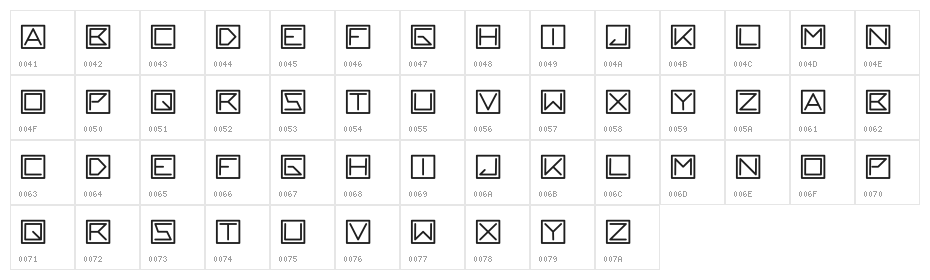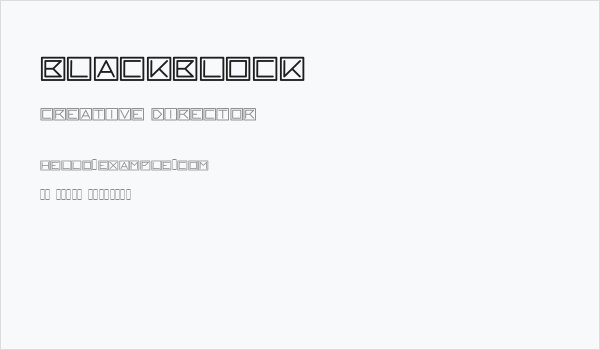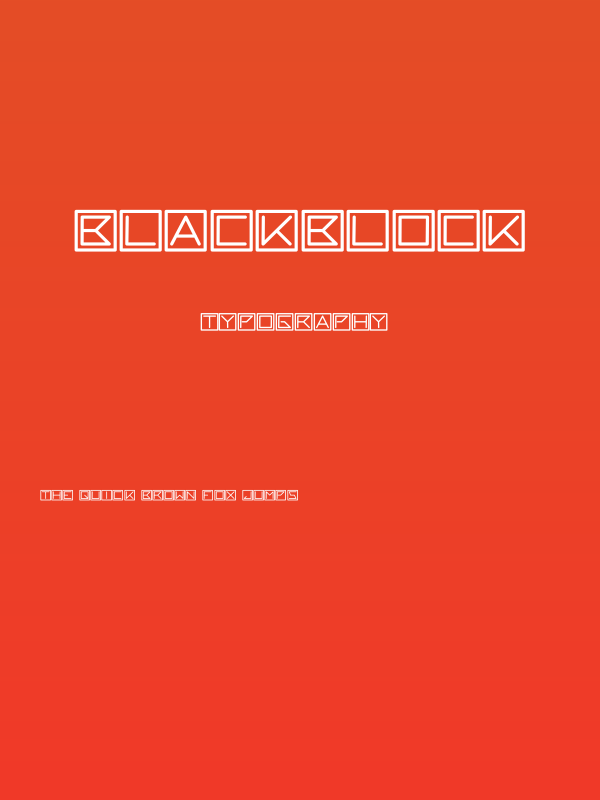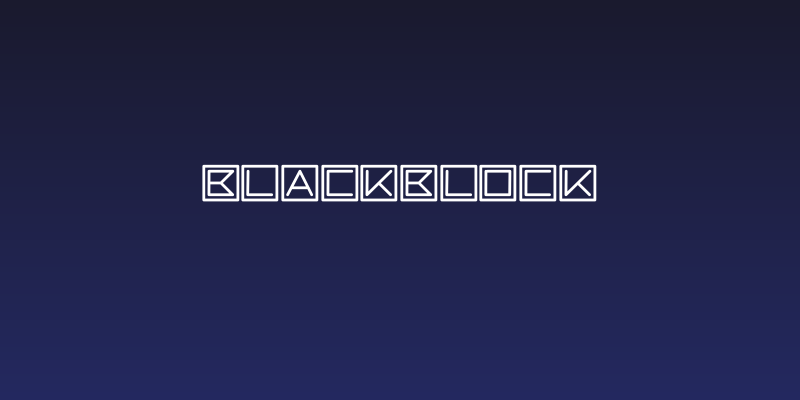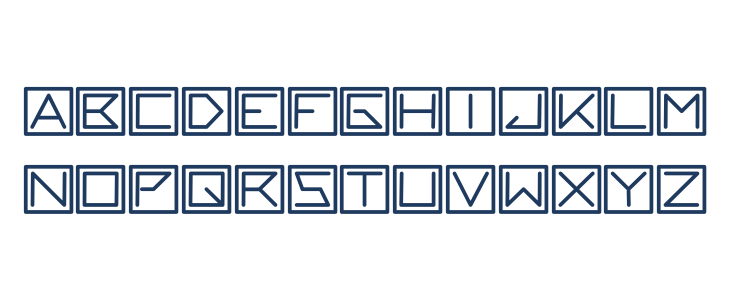
blackblock Font
blackblock Description
This font features a bold, geometric design with each character enclosed within a square outline. The letters are constructed with thick, consistent strokes that form angular and straight lines, giving a futuristic and structured appearance. The uniformity of the squares creates a grid-like pattern, emphasizing the modern and industrial aesthetic. The font is highly legible due to its clear and distinct shapes, making it suitable for impactful visual statements. The absence of curves and the presence of sharp angles contribute to its technical and mechanical feel.
| Use Case | Logos, Headlines, Posters |
| Proposed Projects | Ideal for technology-themed projects, branding for tech companies, futuristic posters, and digital interfaces. |